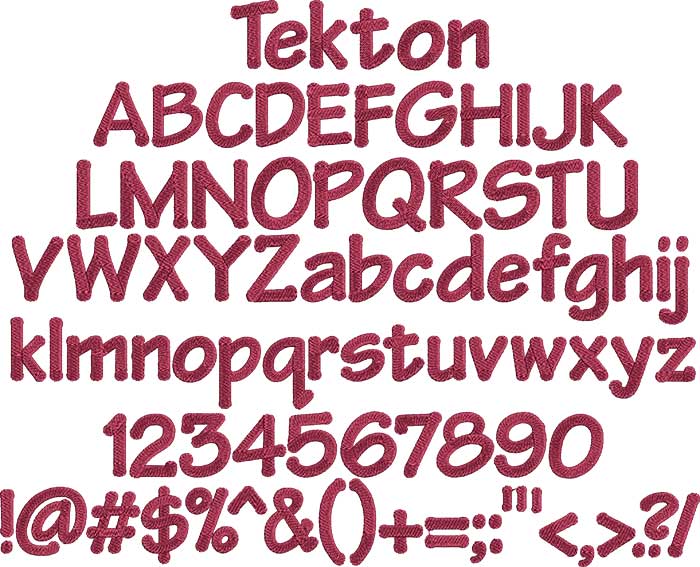
BX Embroidery Font: Tekton
BX Embroidery Font: Tekton Font Font Bundle (4 sizes) is a hand written, architectural machine embroidery font that includes A-Z, a-z, 0-9 and punctuation; 4 sizes.
BX Embroidery Font: Tekton Font is a hand written, architectural machine embroidery font that includes A-Z, a-z, 0-9 and the following punctuation: !@#$%&()-+=:;”‘<>,.?/ (83 total characters).